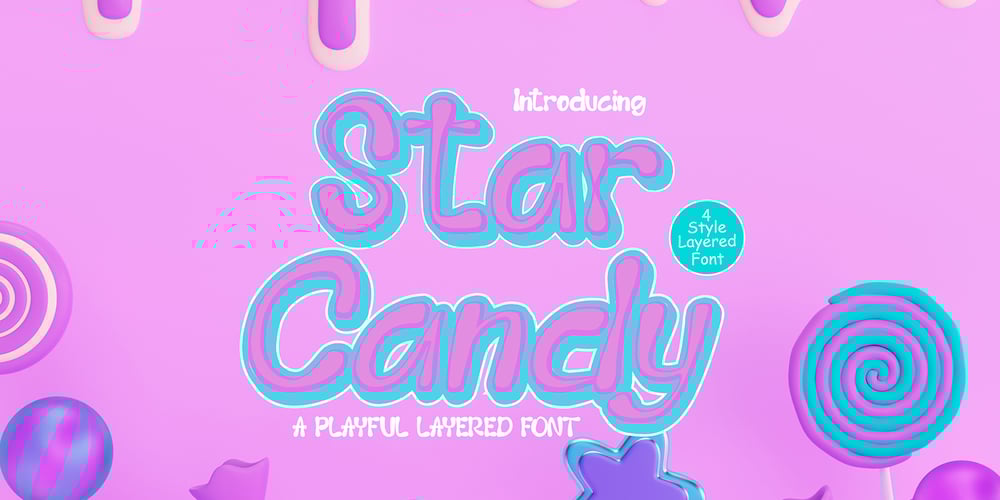
Star Candy 3d Display Font Family was designed by Sipanji and published by Sipanji21. Star Candy 3d Display contains 8 styles and family package options. “Star Candy” is a display font with cute and thin characters. Fonts like this are often used in designs that aim to convey a charming and adorable feel. The thin and cute letterforms give a cheerful and enchanting appearance, making it suitable for a variety of design projects that want to emphasize a sense of cuteness, such as children’s designs, greeting cards, decorations, or products that want to attract attention with their adorable appeal. If you have further questions about using this font or need assistance in a specific design context, please feel free to ask!